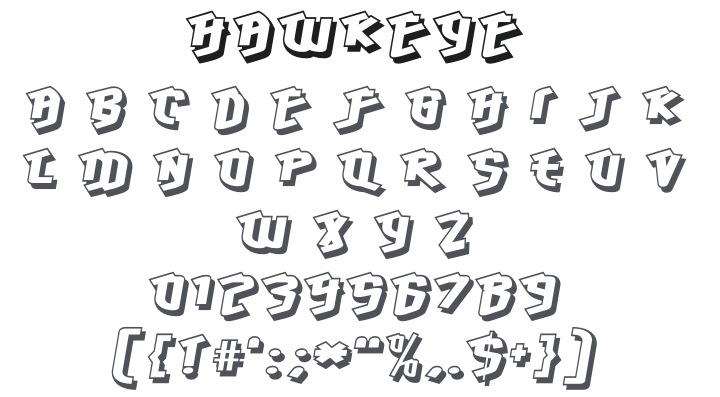
Hawkeye Font Family
About Hawkeye
Hawkeye is a bold, lumbering graffiti-style display typeface — its thick, chunky letterforms feel deliberately clumsy and oversized, like spray-painted lettering by someone with more confidence than finesse. It comes in three layerable files for adding depth and colour effects. Great for street art-inspired posters, urban branding, skate graphics, hip-hop designs, and any headline that thrives on raw, unpolished swagger.